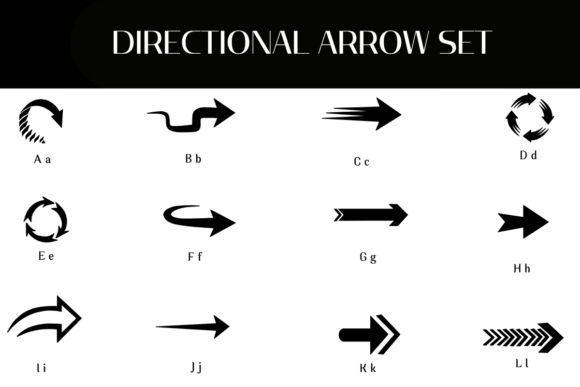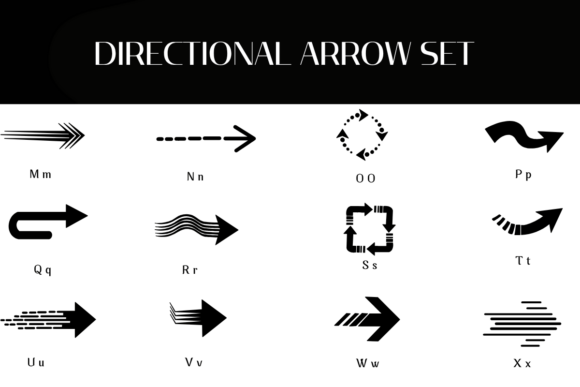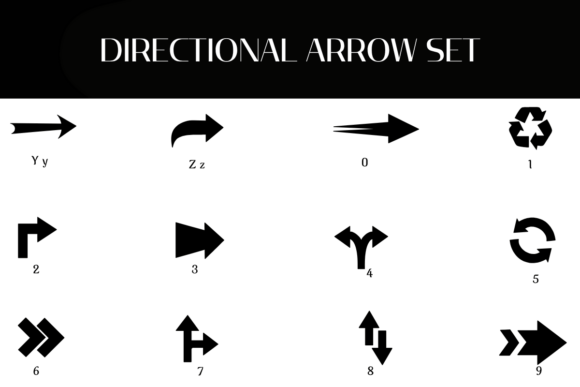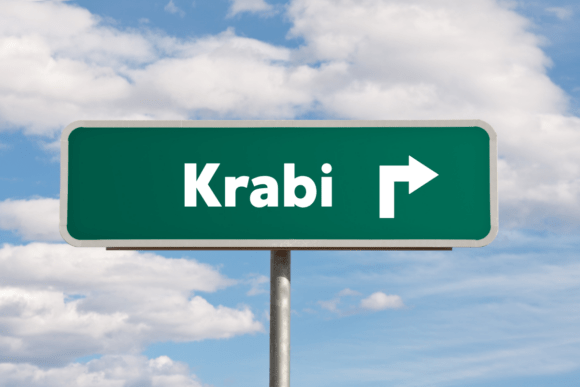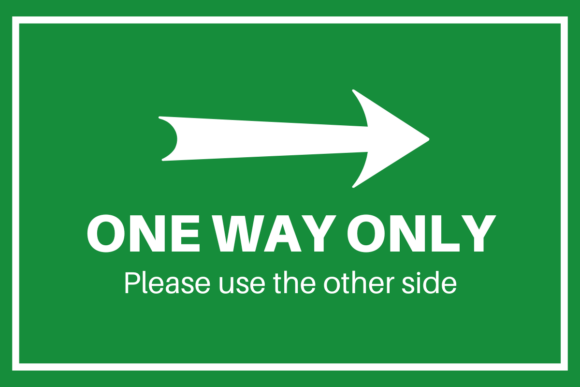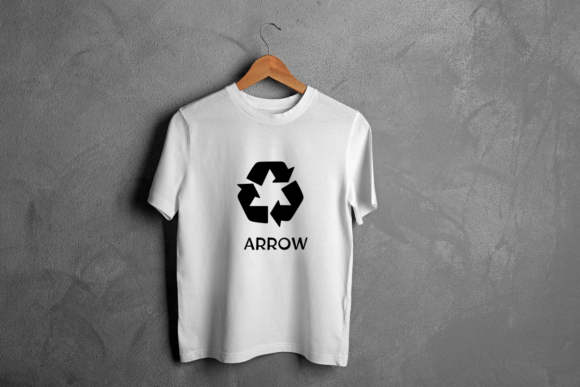
Directional Arrow Set Font: A Versatile Dingbats Font for Creative Projects
Are you a designer, crafter, or DIY enthusiast looking for a unique and versatile font to add a personal touch to your projects? Look no further than the Directional Arrow Set Font, a dingbats font that offers a wide range of creative possibilities. In this article, we’ll explore the features and uses of this exciting font, and show you how to make the most of it in your designs.
What is Directional Arrow Set Font?
Directional Arrow Set Font is a dingbats font, which means it’s a type of font that consists of symbols, icons, and glyphs rather than traditional letters and numbers. This font is specifically designed to provide a set of directional arrows that can be used to add visual interest and personality to your projects.
Uses of Directional Arrow Set Font
Directional Arrow Set Font is a versatile font that can be used in a variety of creative projects, including:
- Journaling and note-taking: Add a personal touch to your journal entries, to-do lists, and notes with the directional arrows.
- Diary writing: Use the arrows to create a visually appealing and organized diary layout.
- Greeting cards: Add a touch of personality to your greeting cards with the directional arrows.
- Banners and signs: Use the arrows to create eye-catching banners and signs for parties, events, or promotions.
- Social media posts: Add a creative touch to your social media posts with the directional arrows.
- Mugs, cards, and shirts: Use the font to create custom designs for mugs, cards, and shirts.
- Stationery and paper crafts: Add a personal touch to your stationery, paper crafts, and other DIY projects.
Benefits of Using Directional Arrow Set Font
The Directional Arrow Set Font offers several benefits, including:
- Unique and creative designs: The font provides a wide range of directional arrows that can be used to create unique and creative designs.
- Versatile: The font can be used in a variety of projects, from journaling and note-taking to designing banners and social media posts.
- Customizable: You can customize the font to fit your design needs, including changing the size, color, and style.
Tips for Using Directional Arrow Set Font
Here are some tips for using the Directional Arrow Set Font:
- Experiment with different sizes and colors: Try out different sizes and colors to see what works best for your project.
- Combine with other fonts: Combine the directional arrows with other fonts to create a unique and visually appealing design.
- Use for visual interest: Use the arrows to add visual interest to your design, such as creating a border or separating sections.
- Keep it simple: Don’t overdo it – sometimes less is more, and a simple design with a few directional arrows can be just as effective.
The Directional Arrow Set Font is a versatile and creative dingbats font that offers a wide range of possibilities for designers, crafters, and DIY enthusiasts. With its ease of use, customizability, and unique designs, this font is perfect for adding a personal touch to your projects. Whether you’re journaling, designing banners, or creating social media posts, the Directional Arrow Set Font is a great choice. So why not give it a try and see what creative possibilities you can come up with?